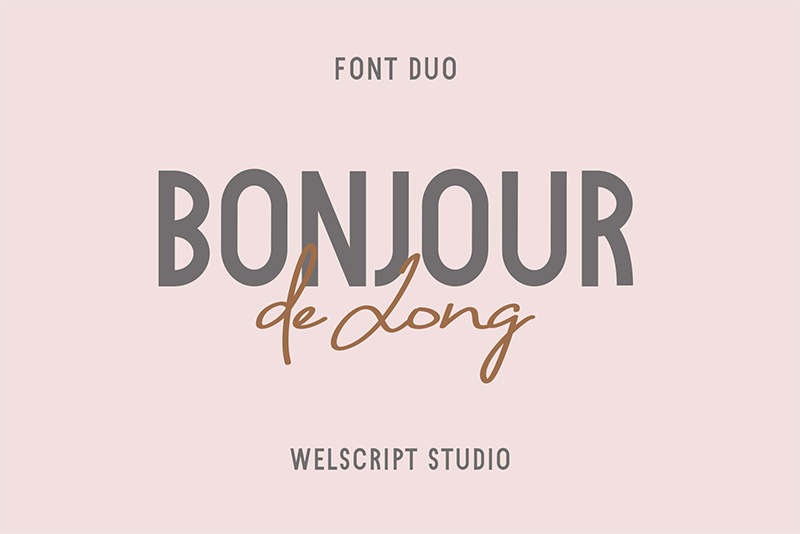
Preview and download Bonjour De Jong Sans Font. Created by Wellscript Studio in Basic Sans serif styles with Free for personal use license.
Bonjour de Jong is a stunning modern font duo that makes for gorgeous logos, posters, wedding invitations, blog posts, social media, and more! This font is personal use only, clik this link to purchase commercial license : https://fontbundles.net/wellscript-studio/643366-bonjour-de-jong-font-duo If you need a custom or corporate license please contact us at: wellscriptstudio@gmail.com if you want to give us a cup coffee, 🙂 https://paypal.me/wellscript say hi to our store for more amazing fonts : https://fontbundles.net/wellscript-studio Follow our instagram for update : @wellscriptstudio Thank you & Hope You Like It 🙂 Wellscript Studio |